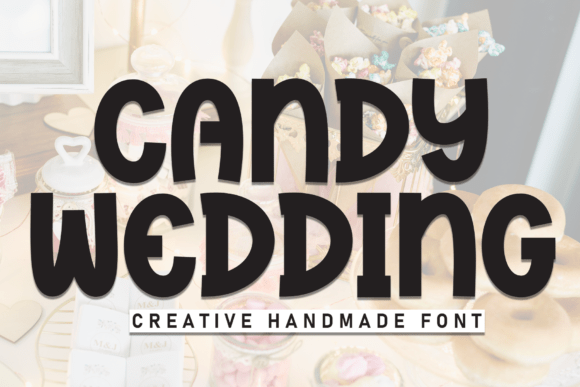
Candy Wedding Font: The Perfect Choice for Your Special Day
When it comes to planning your special day, every detail matters. From the venue to the decorations, and from the music to the wedding cake, you want everything to be perfect. One often overlooked but crucial element is the font used in your wedding materials. This is where the Candy Wedding Font comes in – a casual and neat display font that radiates a fresh, friendly vibe.
What is Candy Wedding Font?
Candy Wedding Font is a modern, clean, and elegant display font designed specifically for wedding-related projects. With its clean lines and relaxed structure, it’s perfect for creating beautiful packaging, posters, and social media graphics. The approachable design adds charm and clarity to projects while maintaining a polished appearance.
Key Features of Candy Wedding Font
- Clean Lines: The font features clean and precise lines, making it easy to read and understand.
- Relaxed Structure: The relaxed structure of the font gives it a friendly and approachable feel.
- Fresh and Friendly Vibe: The font radiates a fresh and friendly vibe, perfect for wedding-related projects.
- Perfect for Packaging and Posters: The font is ideal for creating beautiful packaging and posters for your special day.
- Social Media Graphics: The font is also perfect for creating social media graphics, including wedding announcements and invitations.
Why Choose Candy Wedding Font?
There are many reasons why you should choose Candy Wedding Font for your special day. Here are a few:
Unique and Elegant
Candy Wedding Font is a unique and elegant font that will make your wedding materials stand out. Its clean lines and relaxed structure give it a sophisticated look that’s perfect for weddings.
Easy to Read
The font is easy to read, even from a distance. This makes it perfect for posters, banners, and other materials that will be displayed at your wedding.
Versatile
Candy Wedding Font is a versatile font that can be used for a variety of wedding-related projects, including:
- Wedding invitations
- Wedding posters and banners
- Wedding packaging and favors
- Social media graphics and announcements
How to Use Candy Wedding Font
Using Candy Wedding Font is easy. Here are a few tips:
Pair it with Other Fonts
Candy Wedding Font can be paired with other fonts to create a unique and interesting look. Try pairing it with a serif font for a classic look or a script font for a more elegant look.
Use it for Headings and Titles
Candy Wedding Font is perfect for headings and titles. Use it to create eye-catching posters, banners, and social media graphics.
Experiment with Colors and Textures
Don’t be afraid to experiment with different colors and textures when using Candy Wedding Font. Try using different colors to match your wedding theme or adding textures to give your materials a more rustic look.
Tips for Choosing the Perfect Wedding Font
Choosing the perfect wedding font can be overwhelming, but here are a few tips to help you make the right choice:
Consider Your Wedding Theme
Your wedding font should match your wedding theme. If you’re having a classic wedding, a serif font may be a good choice. If you’re having a more modern wedding, a clean and elegant font like Candy Wedding Font may be a better choice.
Think About Readability
Make sure the font you choose is easy to read, even from a distance. You want your guests to be able to easily read your wedding materials, so choose a font that’s clear and concise.
Don’t Forget About Versatility
Choose a font that’s versatile and can be used for a variety of wedding-related projects. This will make it easier to create a cohesive look for your wedding materials.
Candy Wedding Font is a beautiful and elegant font that’s perfect for wedding-related projects. With its clean lines, relaxed structure, and fresh, friendly vibe, it’s the perfect choice for creating stunning wedding materials. Whether you’re looking for a font for your wedding invitations, posters, or social media graphics, Candy Wedding Font is a great choice.